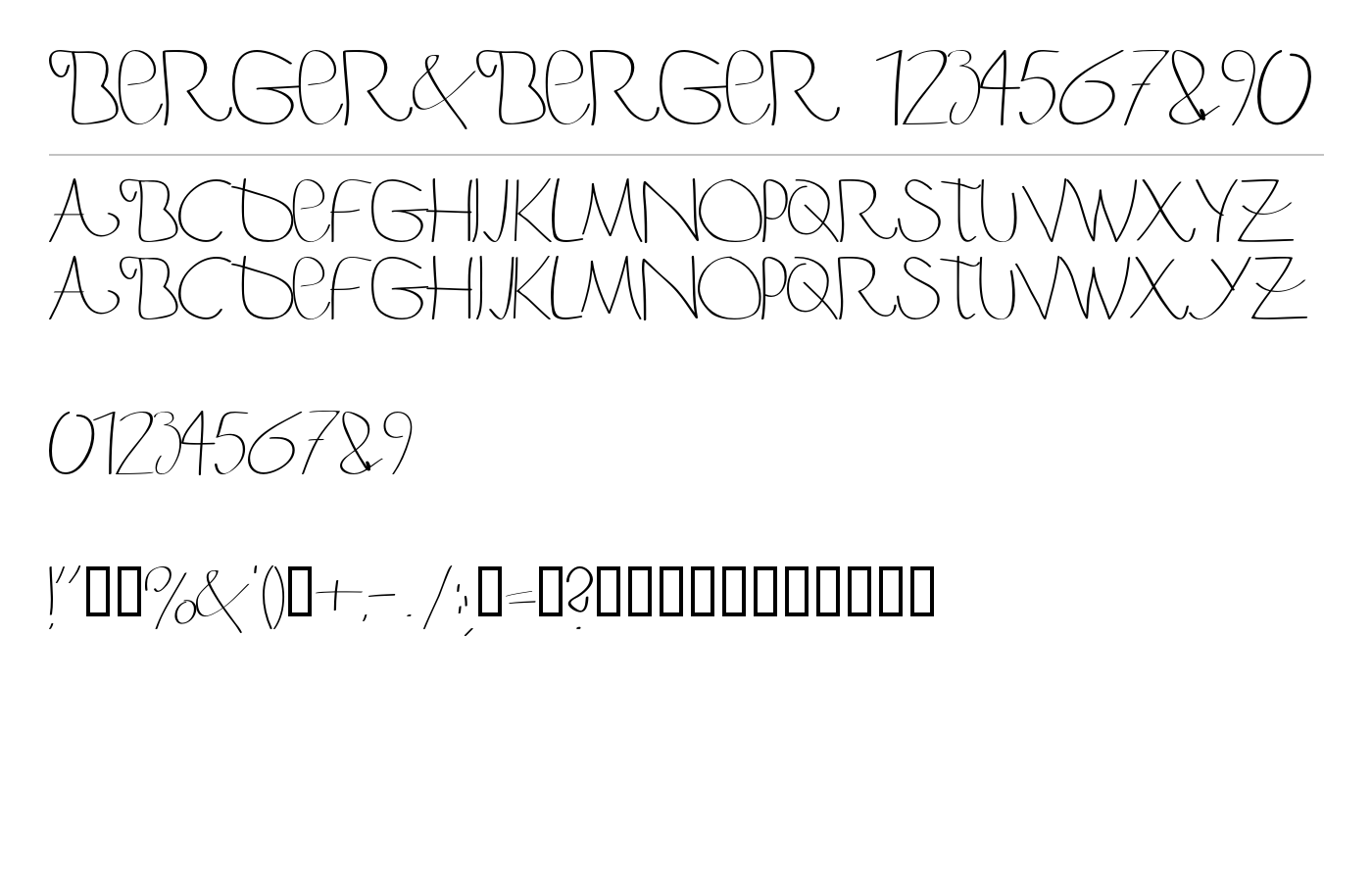
BergerBerger Caps is a whimsical and delicate sans serif font characterized by its thin, playful lines and unique, hand-drawn letterforms with quirky curls and loops. Its light weight and airy spacing give it a casual, artistic feel, making it perfect for creative projects, invitations, and branding that seeks to convey a friendly and imaginative personality. This font works best in large display settings where its intricate details can stand out and add a charming, handcrafted touch.
BergerBerger Caps Font
About BergerBerger Caps Font
| Font family | BergerBerger Caps Font |
| Designer | Daniel Angermann |